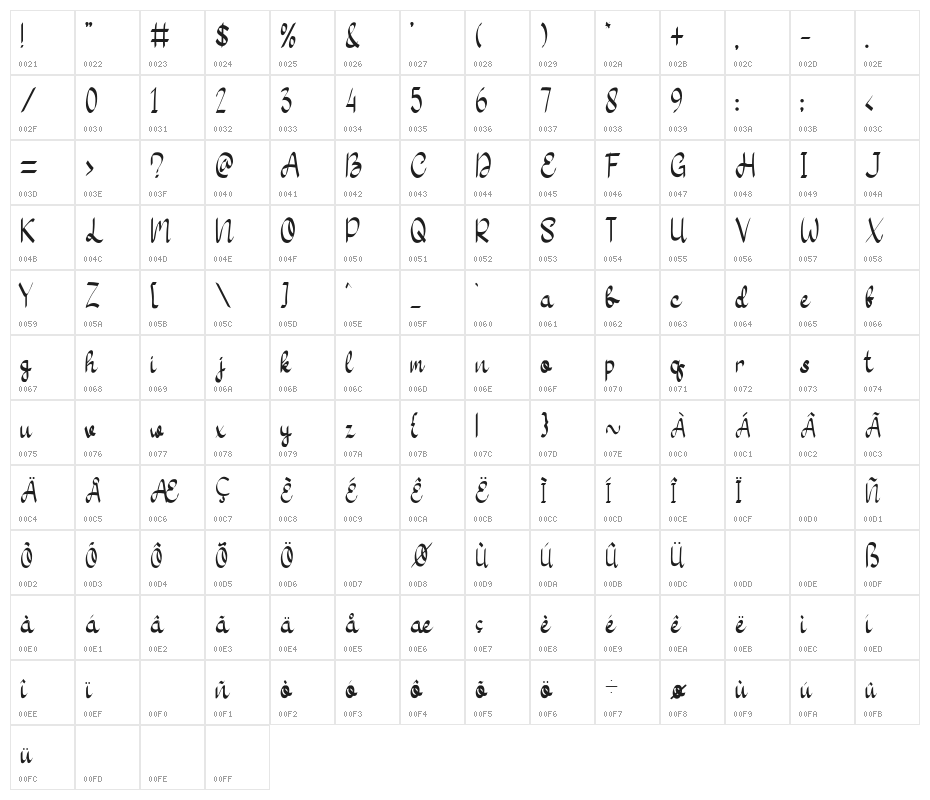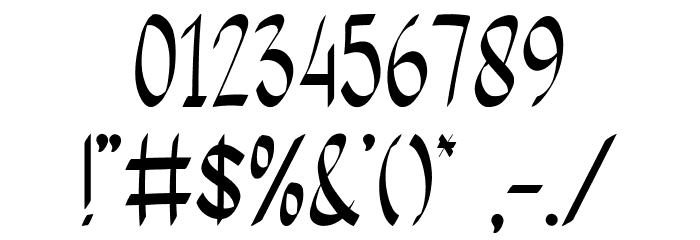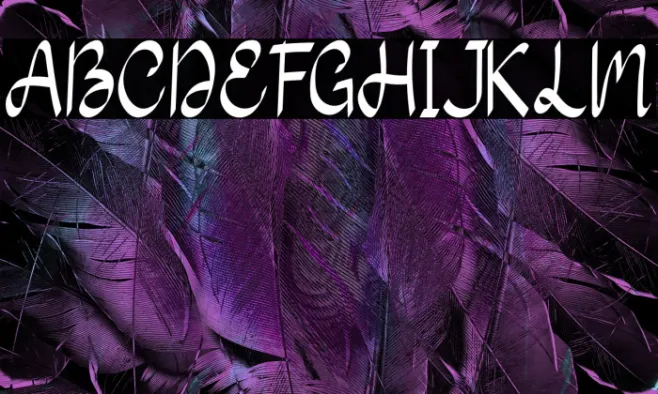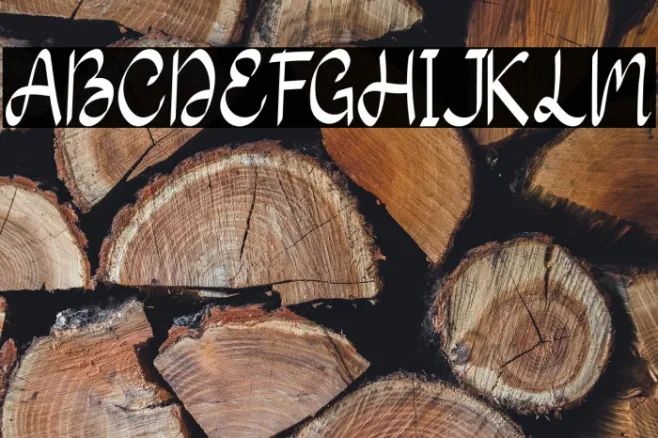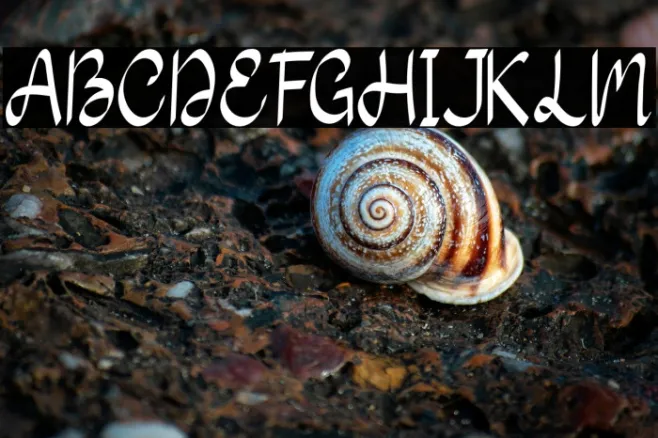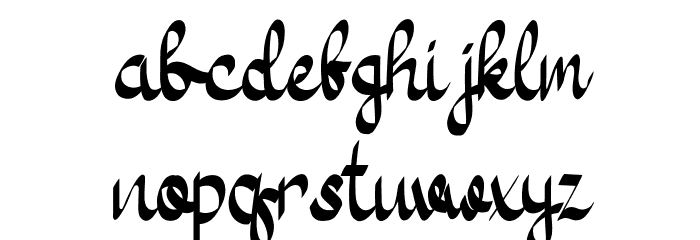
Sunday Fun Font
Sunday Fun Description
This font features a playful and dynamic script style with a handwritten appearance. The letters are characterized by their fluid, cursive strokes, which give a sense of movement and energy. The uppercase letters are bold and slightly slanted, while the lowercase letters maintain a consistent flow with varying heights and loops. The numerals are distinct and maintain the same playful style, ensuring readability. Special characters are creatively integrated, adding to the font's whimsical nature. Overall, the font exudes a casual and friendly vibe, making it suitable for projects that require a personal touch.
| Proposed Projects | Greeting cards, invitations, playful branding, children's books, and social media graphics. |